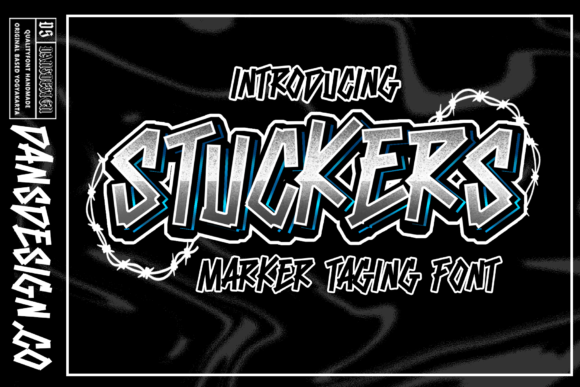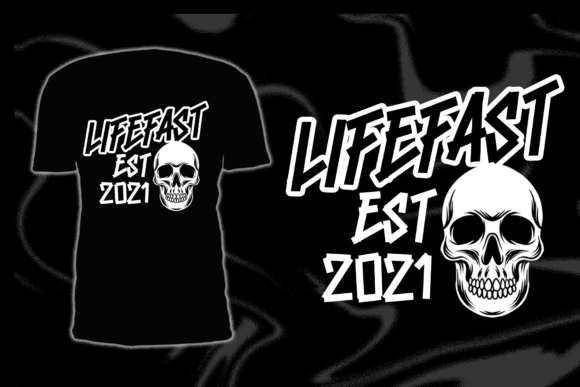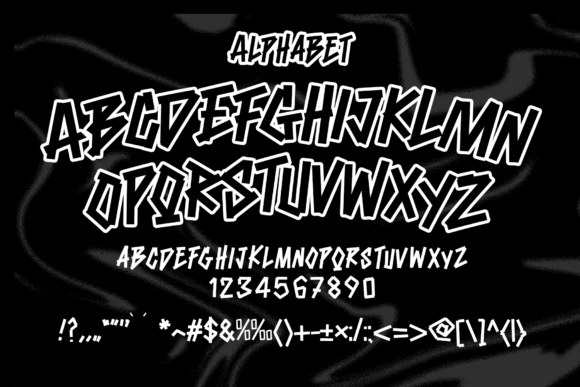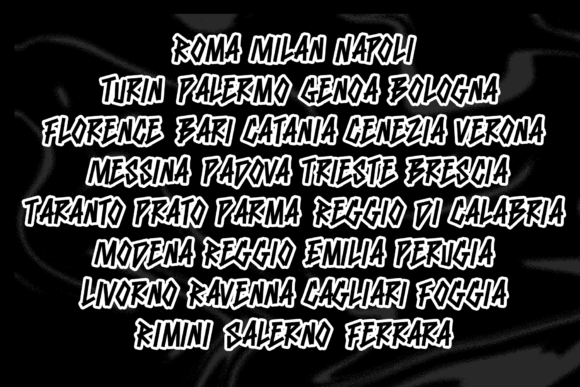
Stuckers Font: A Bold Graffiti Display Font for Street Art Logos!
About the Stuckers Font
Presenting Stuckers Font, a unique and stylish typeface that will make your work stand out. Stuckers is a dramatic, graffiti-styled display font that has a street art vibe. This font is suitable for designs such as t-shirts, sportswear, logos, advertisements, clothing, and more.
Stuckers Font Usage Examples
Stuckers Font Example